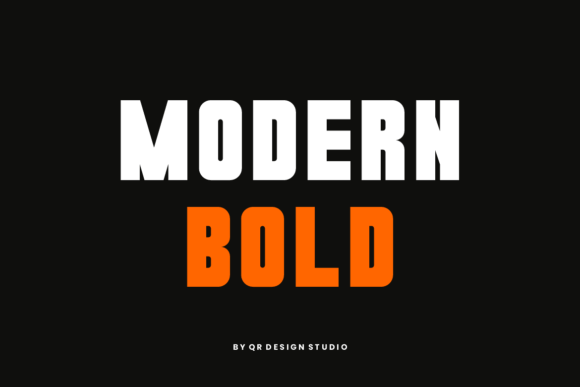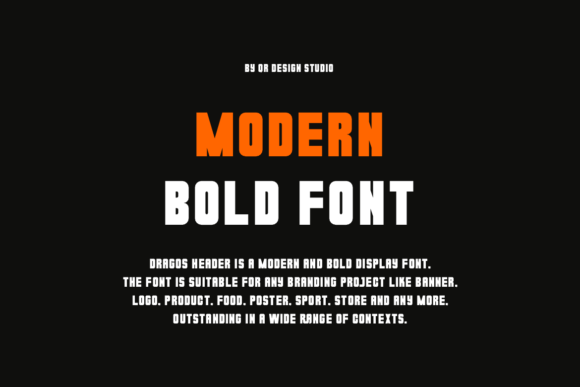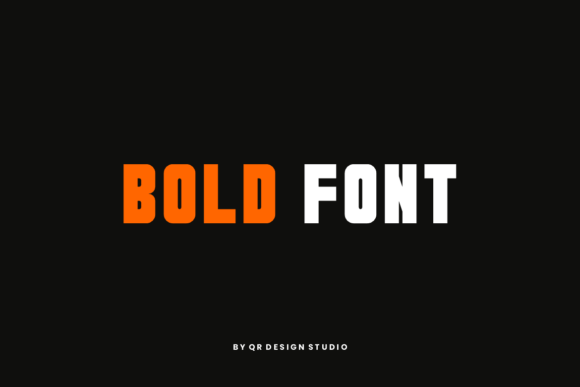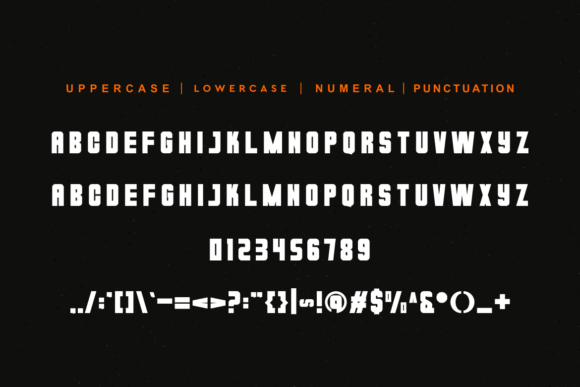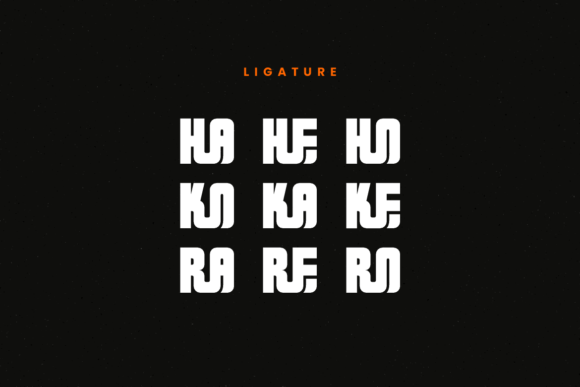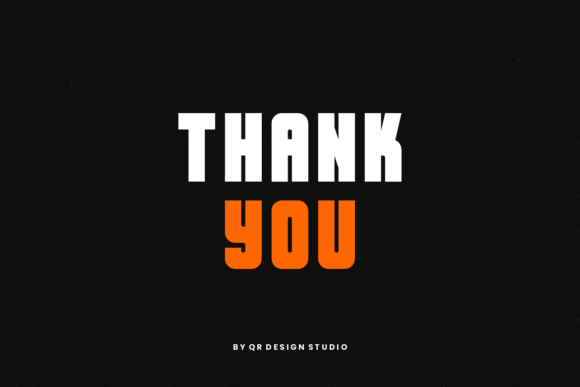
Introducing Dragos: A Bold and Unique Sans Serif Font
In the world of typography, a font can make or break a design project. A well-crafted font can elevate a brand’s identity, convey its message, and leave a lasting impression on its audience. If you’re a designer, crafter, or simply a typography enthusiast, you’re in luck! We’re excited to introduce Dragos, a bold and unique sans serif font that’s perfect for a wide range of applications.
What is Dragos?
Dragos is a modern sans serif font that’s designed to make a statement. Its bold and sleek lines make it perfect for headlines, titles, and any other text that needs to grab attention. With its unique character set and clean design, Dragos is suitable for various branding projects, including logos, websites, gaming, posters, social media, and more.
Key Features of Dragos
- Bold and Unique Design: Dragos has a distinct and eye-catching design that’s sure to stand out in any context.
- Sans Serif Style: The font features clean lines and a minimalist approach, making it perfect for modern designs.
- High Versatility: Dragos can be used in a wide range of applications, from logos and websites to posters and social media graphics.
- Easily Readable: Despite its bold design, Dragos remains easily readable, even at smaller font sizes.
Use Cases for Dragos
Dragos is an incredibly versatile font that can be used in various design projects. Here are some use cases to get you started:
- Logo Design: Create a bold and memorable logo for your brand with Dragos.
- Website Design: Use Dragos as a headline font to grab visitors’ attention and make a lasting impression.
- Gaming: Add a touch of modernity to your game with Dragos, perfect for titles, buttons, and menus.
- Poster Design: Create eye-catching posters with Dragos, ideal for advertising, events, or promotions.
- Social Media Graphics: Use Dragos to create engaging social media graphics, including Facebook posts, Twitter headers, and Instagram stories.
Why Choose Dragos?
- Unique Design: Dragos has a distinct design that will set your project apart from the rest.
- High-Quality: The font is crafted with precision and attention to detail, ensuring a high-quality output.
- Versatile: The font can be used in various applications, making it a great addition to your font library.